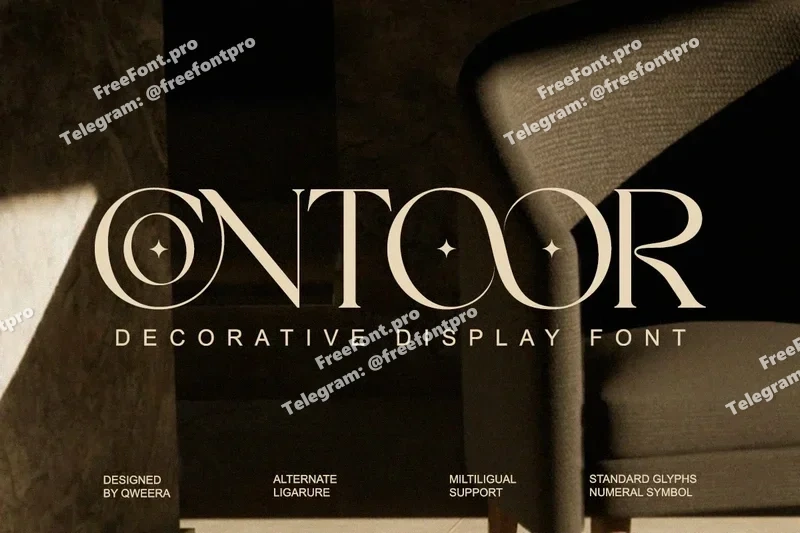
Contoor – Minimal Modern Decorative Serif Logo
Contoor is a modern decorative serif typeface that blends geometric precision with minimal elegance. Its distinctive letterforms and stylish alternates create a bold yet refined aesthetic for editorial layouts, branding, posters, packaging, and high-end logos. Contoor’s unique rhythm and luxury tone make it a perfect fit for modern creatives who want strong personality in their design.
Regular & Italic
Alternates & Ligatures
Geometric Construction
Perfect For:
Editorial headlines, branding identity, packaging design, poster art, and creative logo systems.